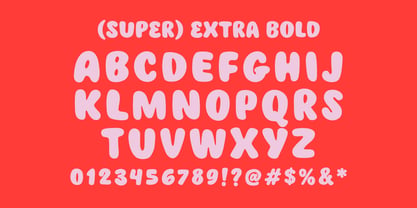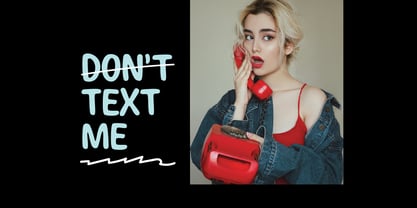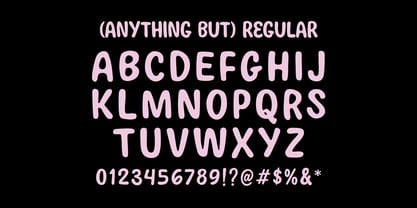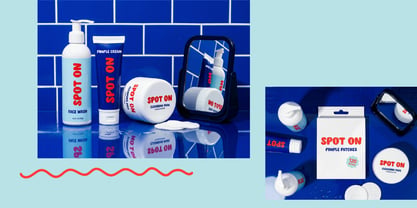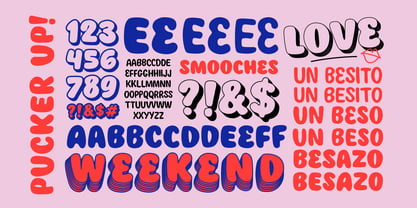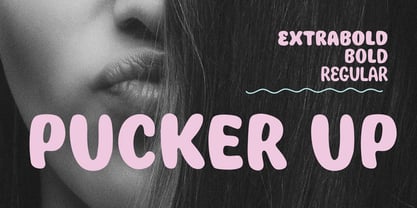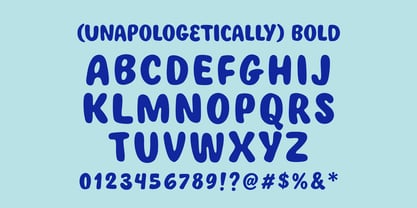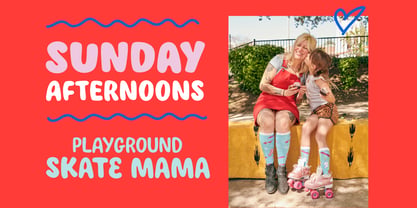
Pucker Up
La familia tipográfica Pucker Up fue diseñada por Annica Lydenberg y publicada por Dirty Bandits. Pucker Up contiene 3 estilos y opciones de paquete familiar. Más información sobre esta familia
Pucker Up is a organic, fluid display family, offering a high-impact alternative to traditional geometric sans-serifs. Defined by soft, exaggerated terminals and rounded counters, the typeface mimics physical surface tension to provide a rhythmic, tactile silhouette that remains legible across commercial packaging and brand identity systems. Family includes a balanced Regular weight for text with an unapologetically dense Bold weight for primary headlines, and an ultra heavy weight for short call outs, this three-weight system delivers a versatile, soft aesthetic tailored for mission-driven retail brands, kids decor, beauty brands, modern streetwear, and high-engagement digital environments.